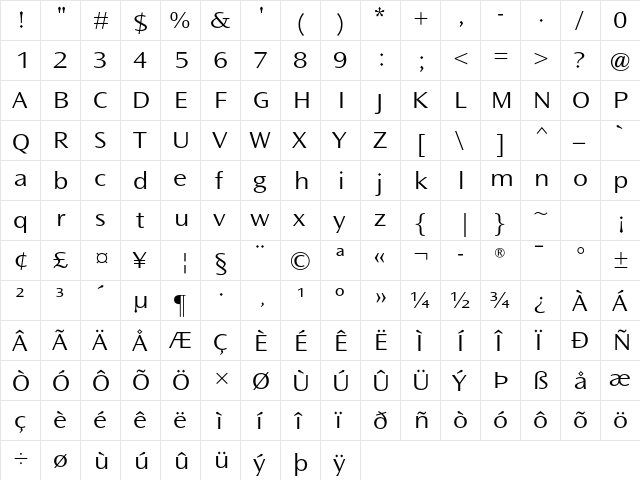
Ocean Sans Std Light Extended
| Designer | Chong Wah |
Design Context for Ocean Sans Std Typeface
Ocean Sans Std takes a measured approach to typography — its balanced proportions and neutral character make it a reliable workhorse for both digital and print work. Its slender proportions lend an understated elegance to any composition.